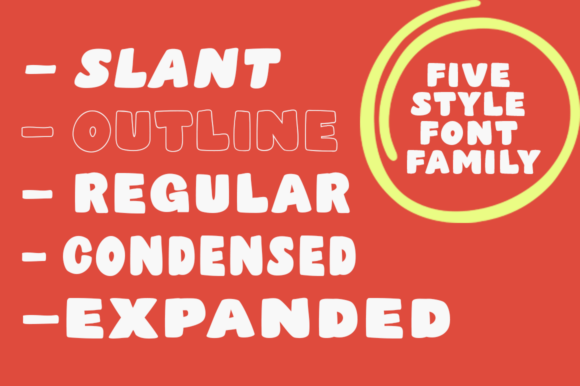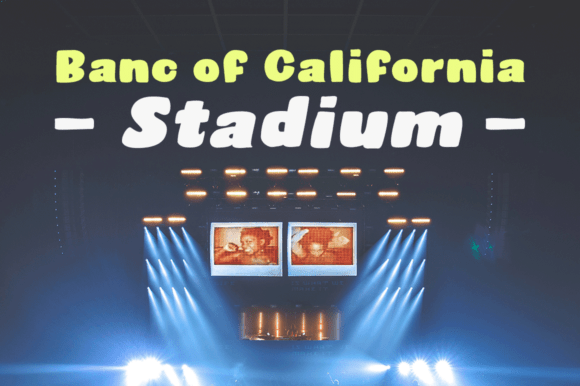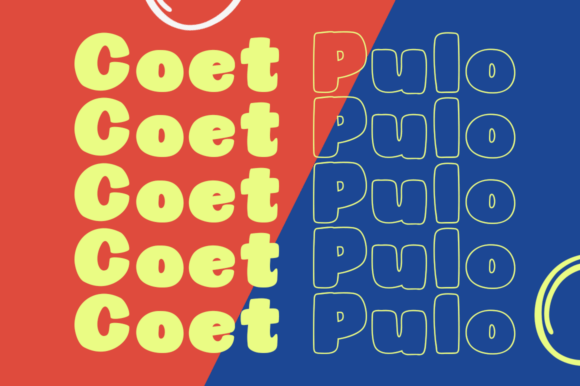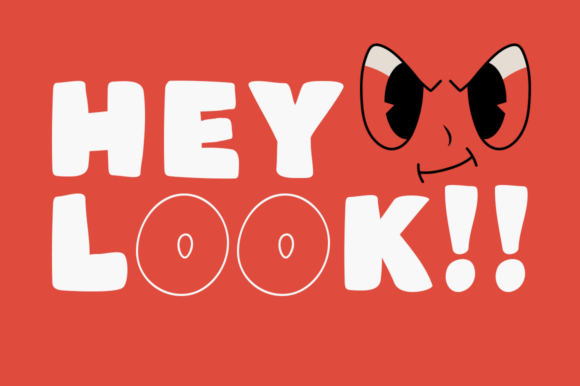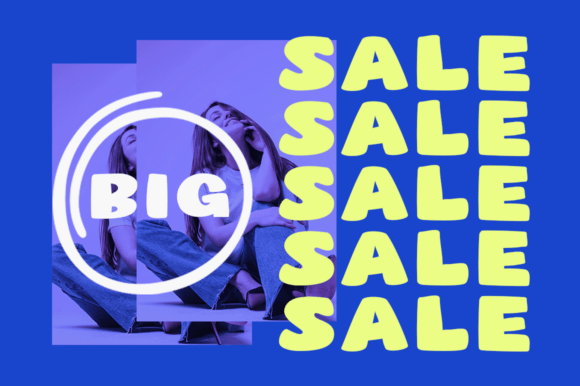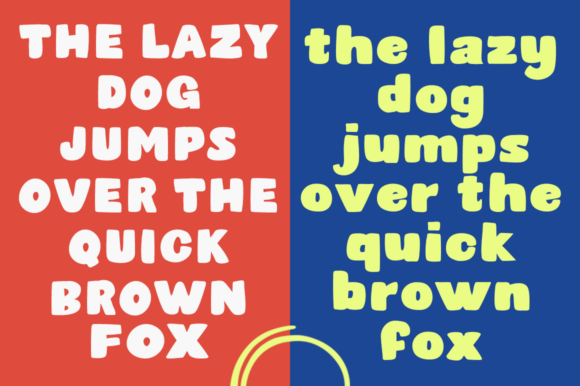
Discover the Power of Fortuna Absolute Font: A Modern Sans-Serif Display Typeface
In the world of typography, a font can make all the difference in the success of a design project. With the right typeface, you can convey your brand’s personality, evoke emotions, and create a lasting impression on your audience. If you’re on the hunt for a modern sans-serif display font that exudes a bold, handcrafted character, look no further than Fortuna Absolute. Designed by Rotterlab Studio, this versatile font family is engineered to bring a sense of friendly authority and creative energy to your projects.
The Distinctive Features of Fortuna Absolute
Fortuna Absolute is a modern sans-serif display typeface that boasts a unique blend of rounded shapes and strong letterforms. This harmonious combination delivers a playful yet clean look that stands out across various creative projects. The font’s soft, rounded terminals and heavy weight demand attention while maintaining a welcoming, approachable vibe. Whether you’re designing a bold logo for a startup or a fun, high-contrast poster, Fortuna Absolute provides a professional yet “human” aesthetic that resonates with audiences.
Unleash Your Creativity with Fortuna Absolute’s Range of Styles
What truly sets Fortuna Absolute apart is its incredible range of styles, offering everything from “Slant” and “Outline” to “Expanded” and “Condensed” versions. This variety makes Fortuna Absolute a perfect toolkit for dynamic branding, impactful social media headers, and modern packaging designs. With this extensive range of styles, you can experiment with different looks and find the perfect fit for your project. Whether you’re aiming for a bold statement or a subtle nuance, Fortuna Absolute has got you covered.
Applications of Fortuna Absolute
Fortuna Absolute’s versatility makes it an excellent choice for a wide range of design applications, including:
- Branding: Create a bold logo for a startup or rebrand an existing company with a fresh, modern look.
- Social Media Headers: Design impactful social media headers that grab attention and elevate your online presence.
- Packaging Designs: Add a touch of modern elegance to your packaging designs with Fortuna Absolute’s clean lines and bold character.
- Posters: Create eye-catching posters with Fortuna Absolute’s high-contrast styles and bold letterforms.
Why Choose Fortuna Absolute?
With so many fonts available, why choose Fortuna Absolute? Here are just a few compelling reasons:
- Unique Character: Fortuna Absolute’s handcrafted character sets it apart from generic fonts, giving your designs a distinctive look.
- Versatility: With a range of styles to choose from, Fortuna Absolute adapts to various design applications and projects.
- Professional Aesthetic: Fortuna Absolute provides a professional yet approachable aesthetic that resonates with audiences.
- Easy to Read: Despite its bold character, Fortuna Absolute remains easy to read, making it perfect for headlines and titles.
In conclusion, Fortuna Absolute is a powerful modern sans-serif display typeface that brings a sense of friendly authority and creative energy to your projects. With its unique blend of rounded shapes and strong letterforms, this versatile font family is perfect for designers and crafters looking to elevate their designs. Whether you’re working on branding, social media headers, packaging designs, or posters, Fortuna Absolute provides a professional yet approachable aesthetic that resonates with audiences. Explore the Fortuna Absolute font today and discover a world of creative possibilities!
- Modern sans-serif display typeface
- Bold, handcrafted character
- Rounded shapes and strong letterforms
- Soft, rounded terminals
- Heavy weight demands attention
- Incredible range of styles (Slant, Outline, Expanded, Condensed)
- Perfect for branding, social media headers, packaging designs, and posters